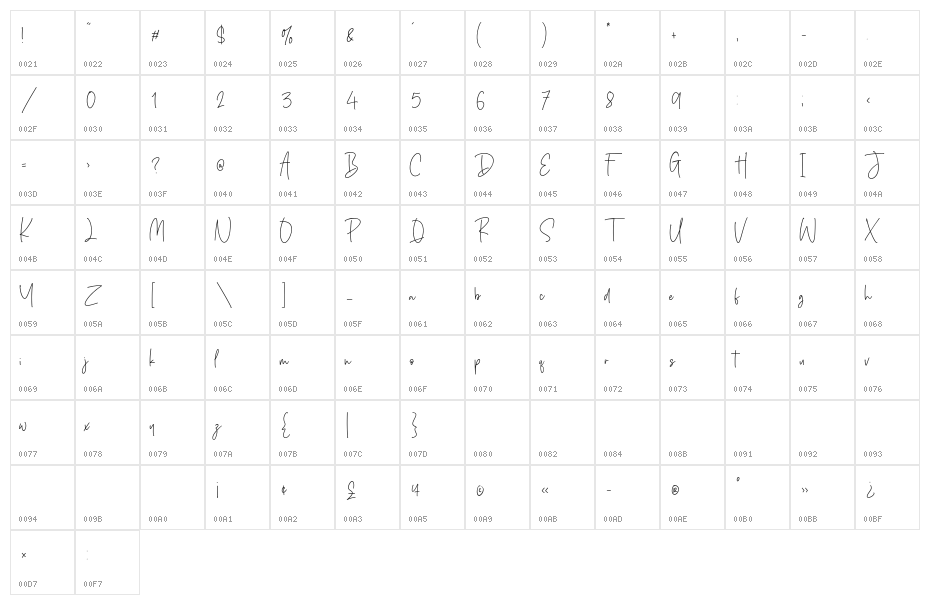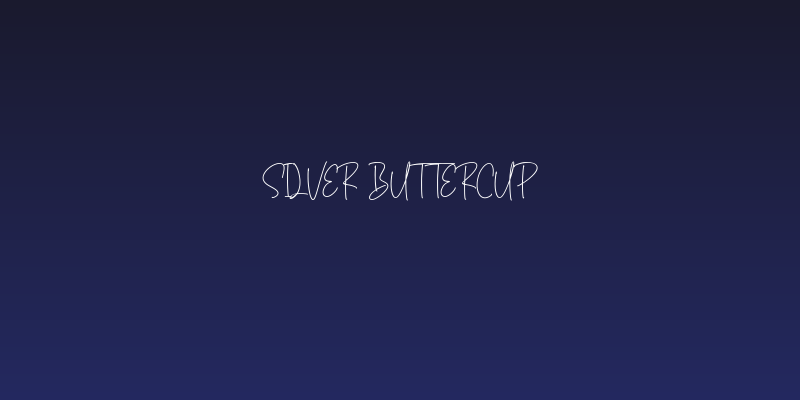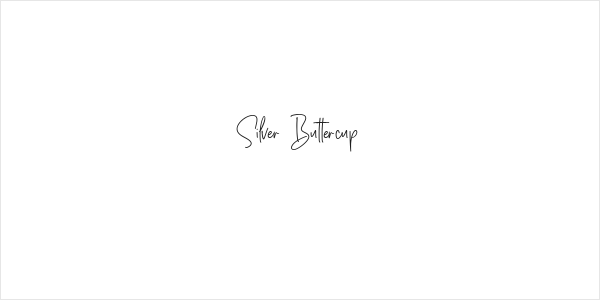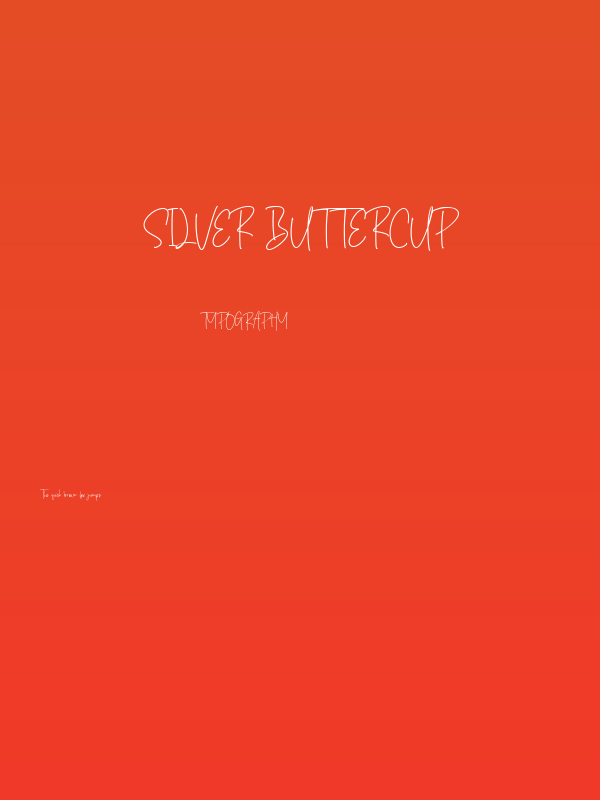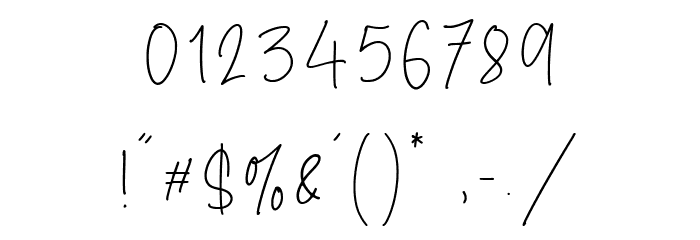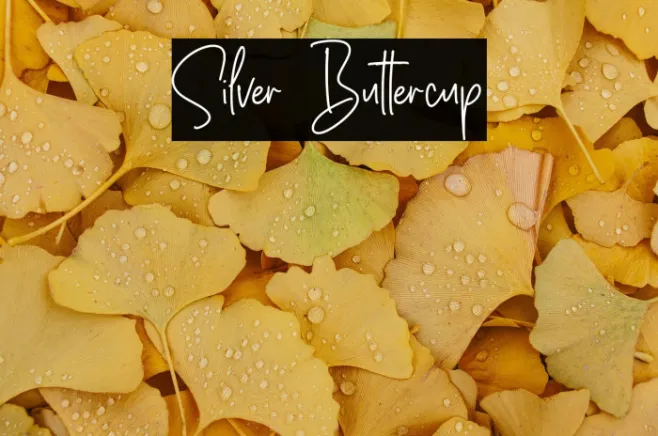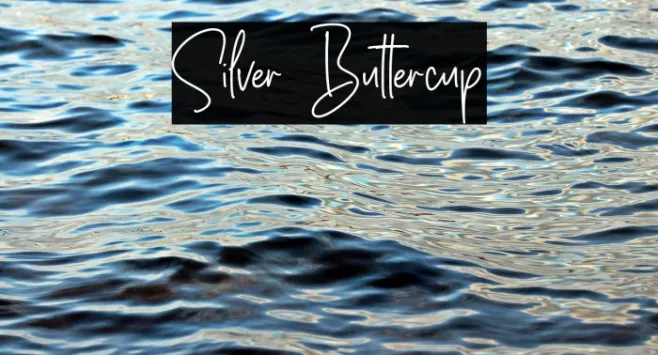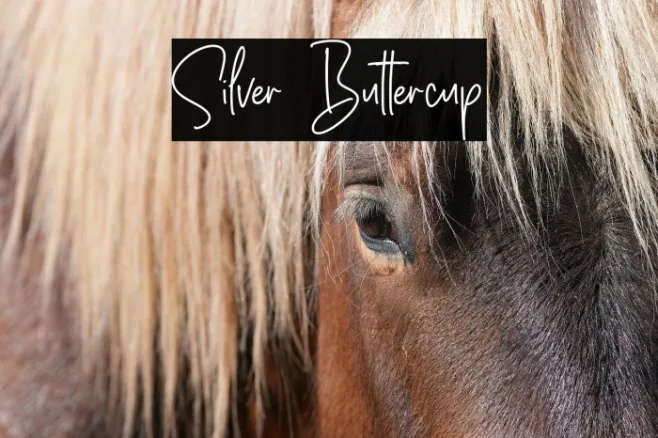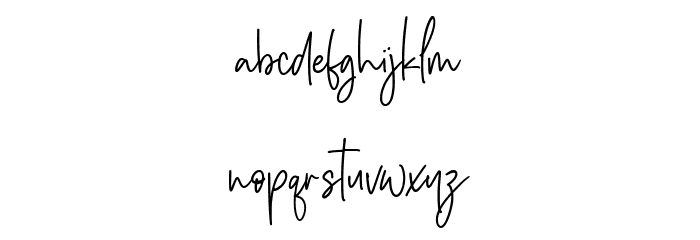
Silver Buttercup Font
Silver Buttercup Description
This font features a playful and whimsical handwritten style, characterized by its fluid and organic letterforms. The strokes are thin and slightly uneven, giving it a casual and approachable feel. The uppercase letters are tall and narrow, while the lowercase letters maintain a consistent flow with occasional loops and curves. Numbers and special characters are designed to match the overall aesthetic, ensuring a cohesive look. This font exudes a sense of creativity and spontaneity, making it ideal for projects that require a personal touch.
| Overall Style | Casual, Whimsical |
| Proposed Projects | Ideal for greeting cards, invitations, personal branding, and creative projects that require a personal touch. |